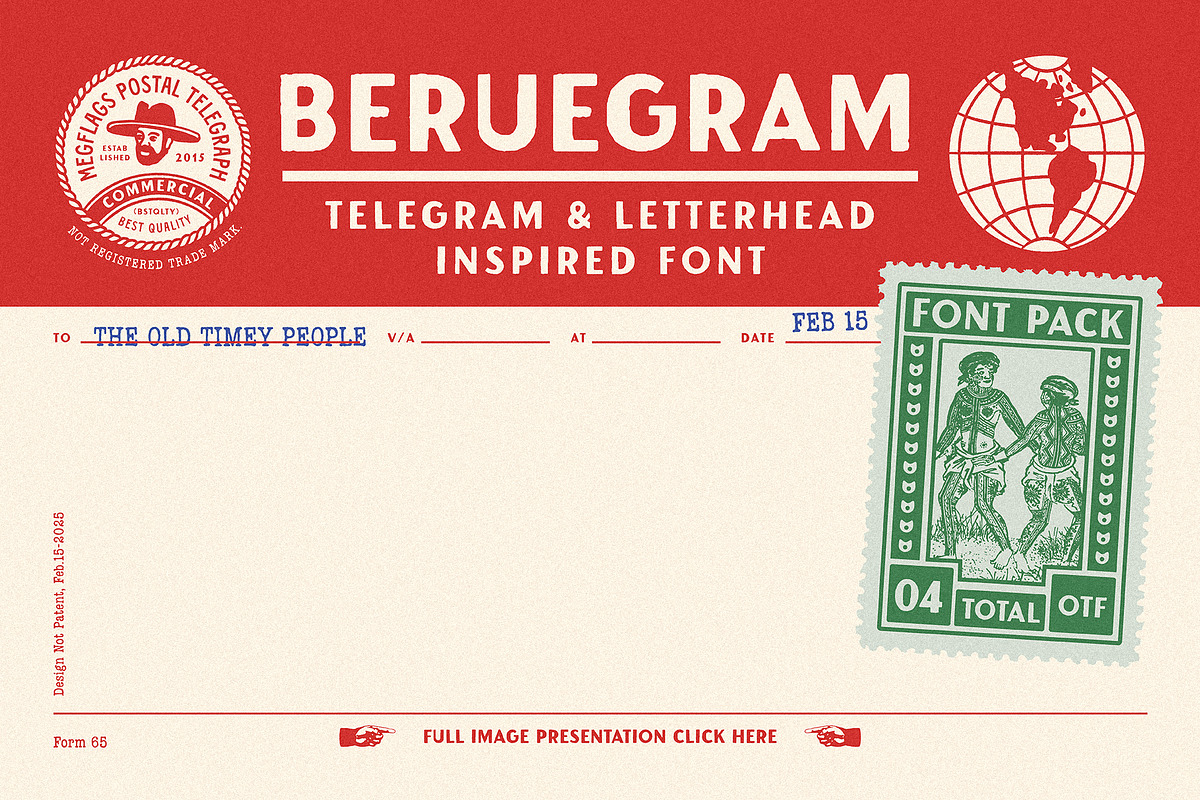
Beruegram revives the brisk, unmistakable voice of historic telegrams and classic letterheads and packages it into a practical, modern font pack. The family captures that concise, slightly mechanical telegram energy while keeping letterforms clean and highly usable across a variety of creative projects. Use Beruegram to give branding, posters, packaging, invitations, and editorial layouts an immediate vintage authority that reads clearly at display sizes.
Authentic Vintage Character And Purposeful Design
Beruegram leans into the aesthetic of mid-century telegrams without becoming a costume prop. The letter shapes show deliberate geometry and slightly condensed proportions that echo old telegraphic machinery and stamped letterheads. Designers will notice the purposeful spacing and balanced stroke contrast that keep text legible while delivering that retro-mechanical personality. The result reads like an official dispatch: confident, direct, and full of nostalgic charm.
Designed For Branding, Posters, And Editorial Work
Use Beruegram to build identities that feel established and storied. Heavy weights work as commanding headlines on posters and signage; medium weights serve beautifully for logotypes and product marks; and lighter weights provide readable subheads and metadata for brochures and editorial spreads. The font’s telegram-inspired cadence suits projects that require a blend of authority and personality: boutique packaging, artisanal labels, themed invitations, and heritage-inspired websites.
OpenType Features And Technical Capabilities Explained
Beruegram ships with robust OpenType controls that let you fine-tune authenticity and stylistic nuance. Features include discretionary and standard ligatures, alternate characters for headline refinement, small caps for formal lockups, and multiple figure styles (lining and tabular figures) for precise layout needs. The family includes carefully kerned pairs and language support for Western European characters to ensure polished typesetting in real-world use.
Pairing Tips And Practical Styling Advice
Pair Beruegram with a humanist serif or a neutral sans to create contrast and readability in long-form content. For display-only projects, combine Beruegram headlines with a fine script or ornamental element to heighten vintage elegance. Keep tracking tight for headline settings to preserve telegram authenticity, and add subtle letterpress or stamped textures when you want tactile visual depth on packaging or stationery.